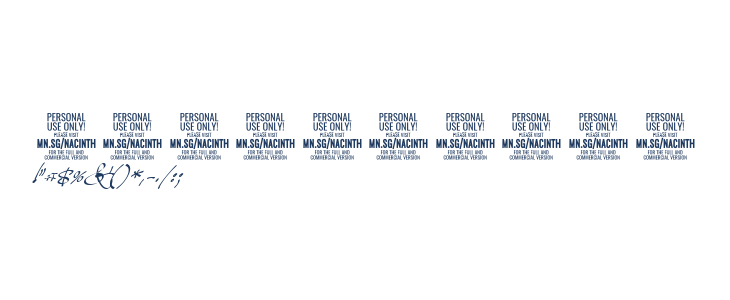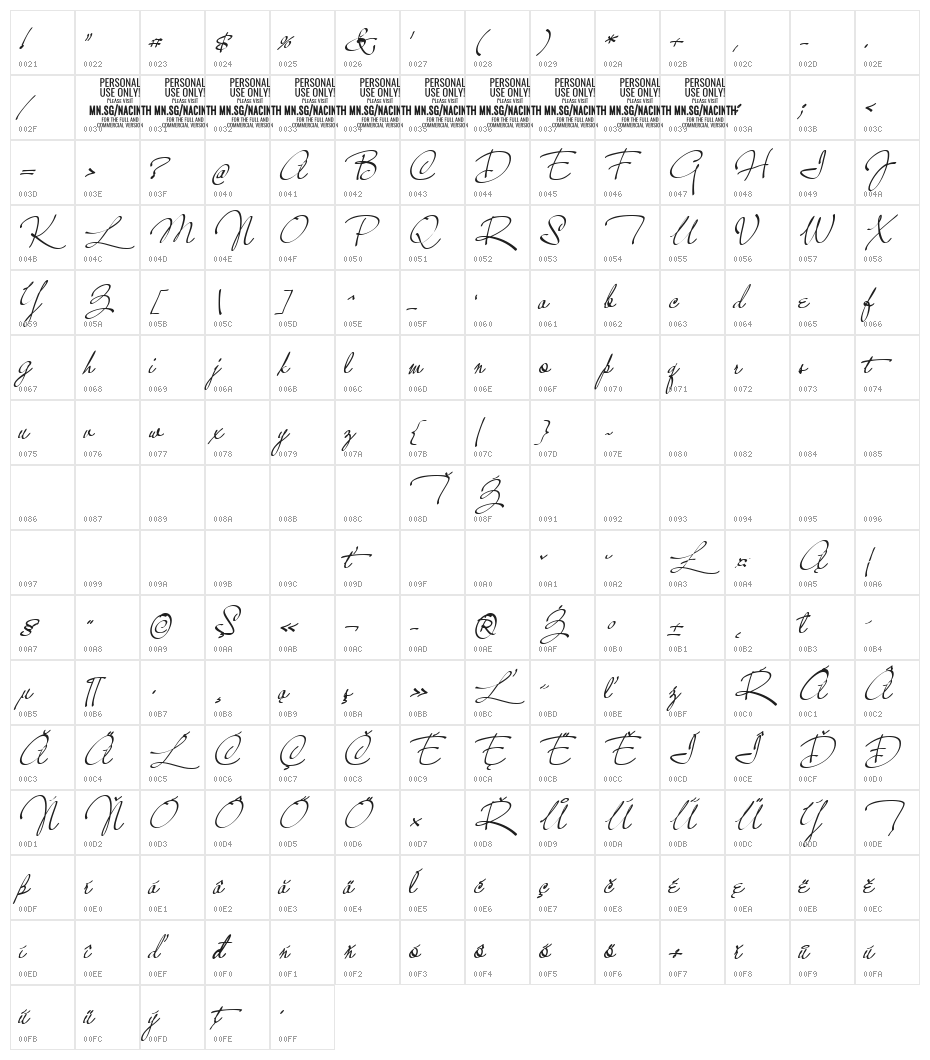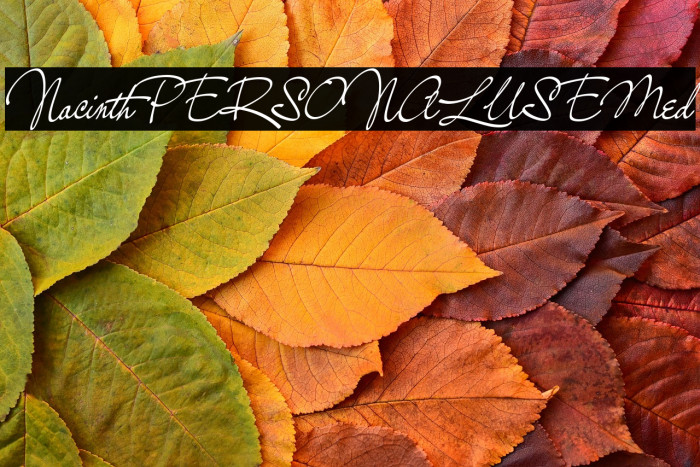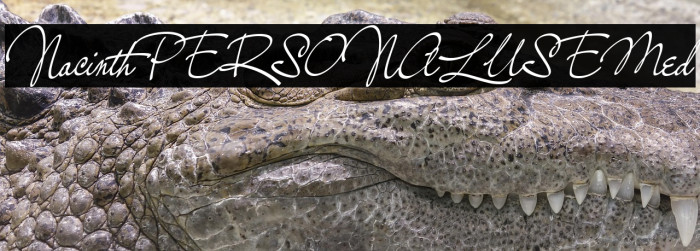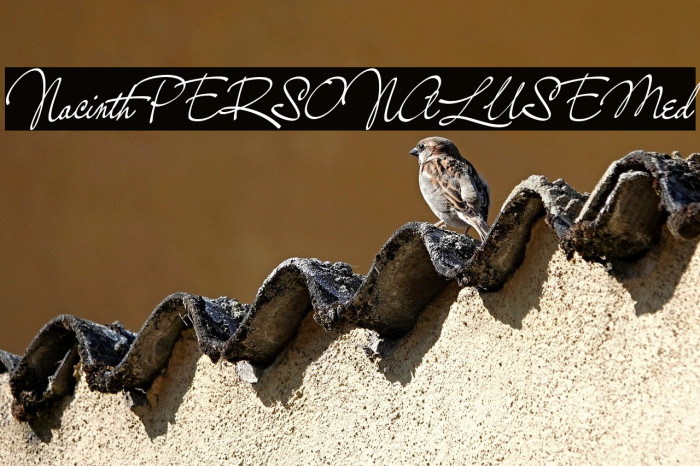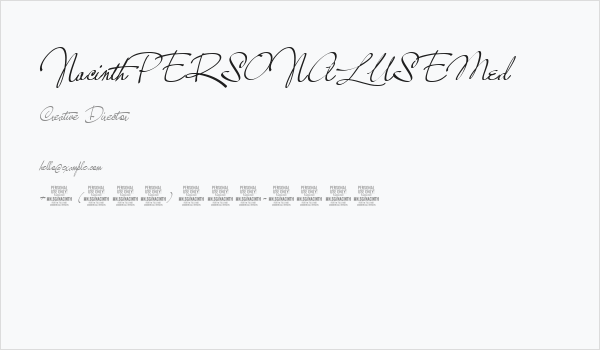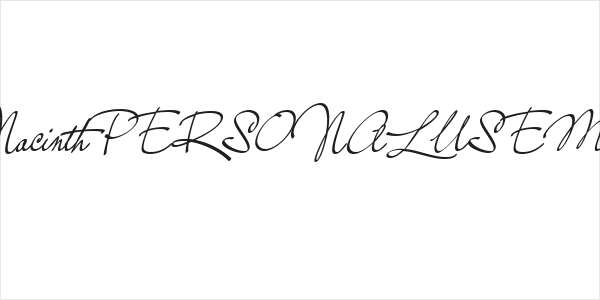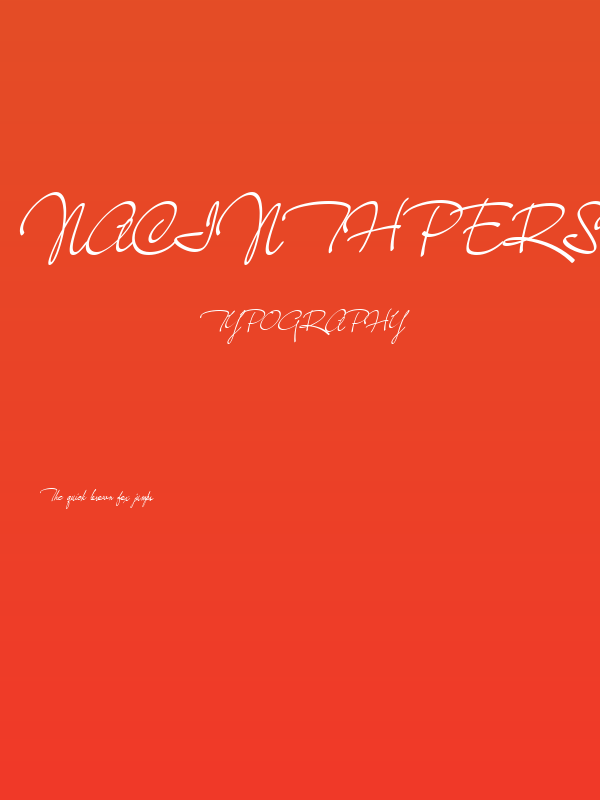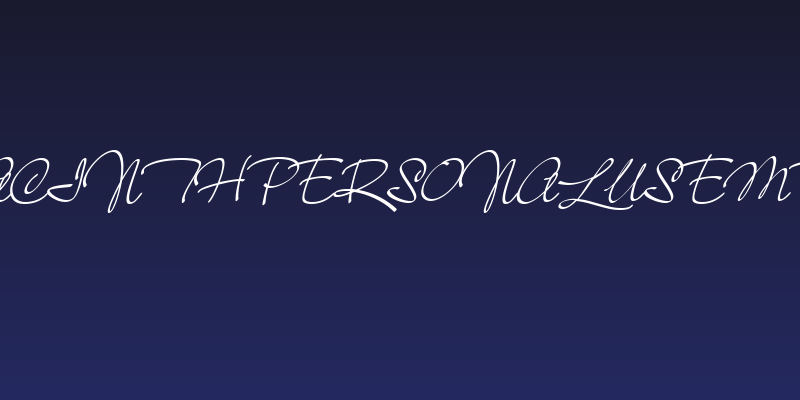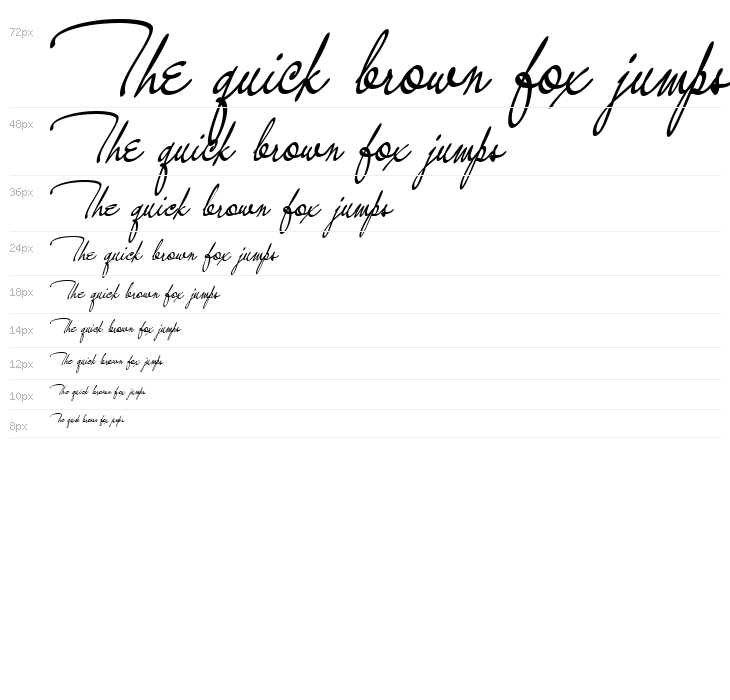
NacinthPERSONALUSEMed Font
NacinthPERSONALUSEMed Description
This elegant script font features a flowing, cursive style with smooth, connected strokes that mimic natural handwriting. The uppercase letters are tall and graceful, with sweeping curves and loops that add a sense of sophistication. The lowercase letters maintain a consistent style, with rounded forms and fluid connections that enhance readability. The numerals and special characters are designed to complement the alphabet, maintaining the same graceful and flowing aesthetic. This font exudes a sense of elegance and refinement, making it ideal for projects that require a personal touch.
| Use Case | Logos, Invitations, Personal branding |
| Proposed Projects | Ideal for wedding invitations, greeting cards, personal branding, and elegant logos. |